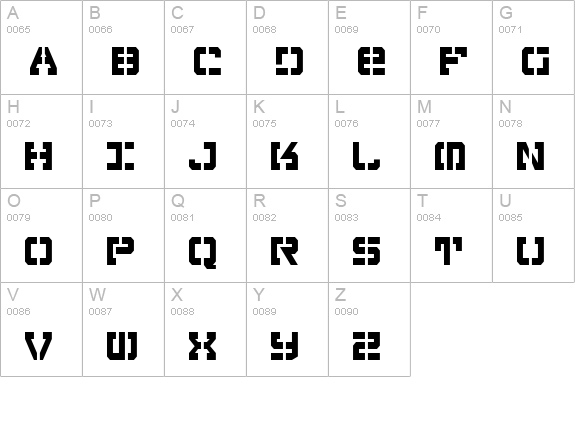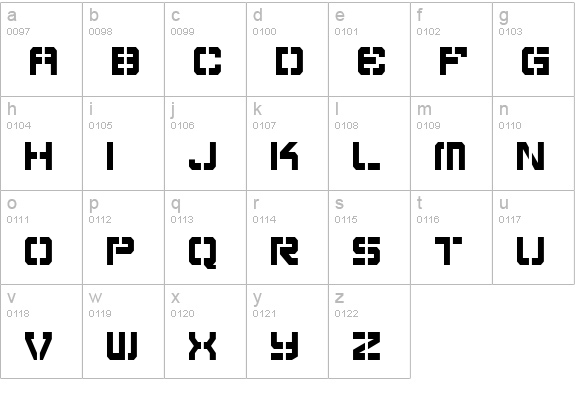
Vyper Condensed is a distinctive, condensed-width variant in the Vyper typeface family \xE2\x80\x94 well suited to design and typography projects.
Vyper Condensed font is a sleek and modern typeface designed for maximum impact and readability. Its condensed form makes it perfect for headlines, titles, and branding projects where space is limited but style is essential. The sharp lines and edgy details give Vyper Condensed a bold and dynamic presence, making it a standout choice for any design application. And the best part? Vyper Condensed font is completely free to download at FontsMarket.com. This means you can elevate your projects with this eye-catching typeface without breaking the bank. Don't miss out on this opportunity to add a touch of sophistication and flair to your designs with Vyper Condensed font. Download it now and take your typography game to the next level!